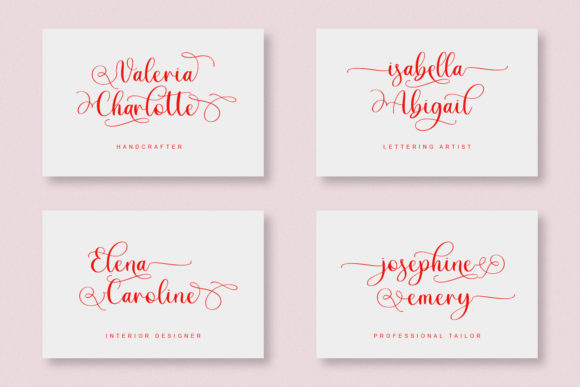
About Adinda Sayang Font
Adinda Sayang feels equally charming and elegant. It looks stunning on wedding invitations, thank you cards, quotes, greeting cards, logos, business cards and every other design which needs a handwritten touch.